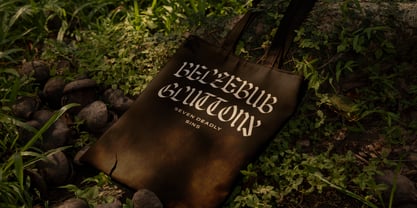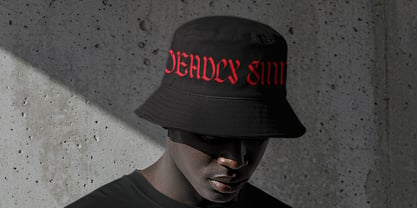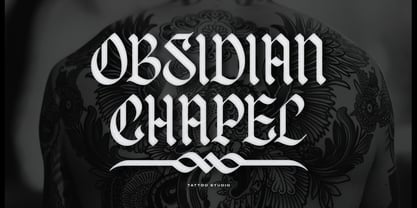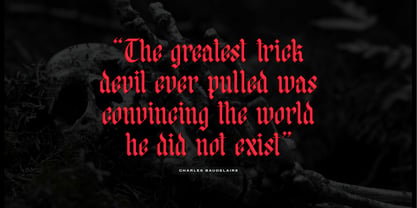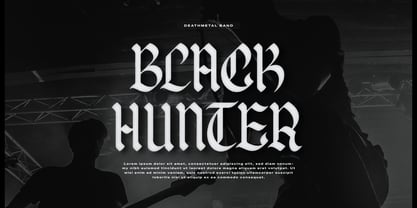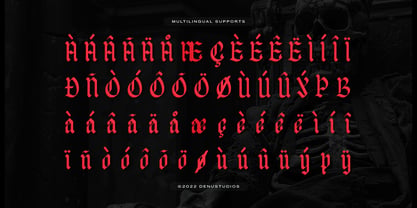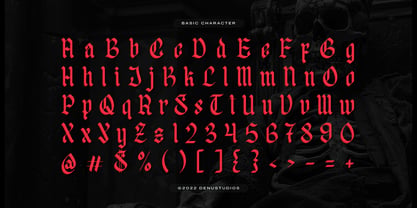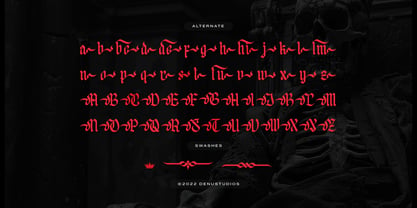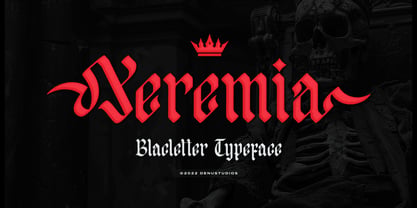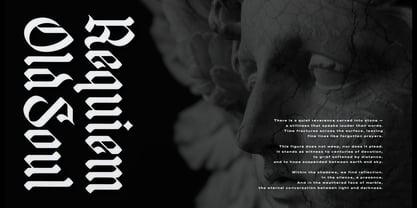
Yeremia
by Denustudio
The Yeremia Font Family was designed by Dede Nugraha and published by Denustudio. Yeremia contains 1 styles. More about this family
Yeremia | Blackletter Typeface, from Denustudios, suitable for any projects such as: logos, branding projects, homeware designs, product packaging, mugs, quotes, posters, shopping bags, t-shirts, book covers, name card, invitation cards, greeting cards, label, photography, watermark, special events, and all your other lovely projects that need Blackletter a taste.